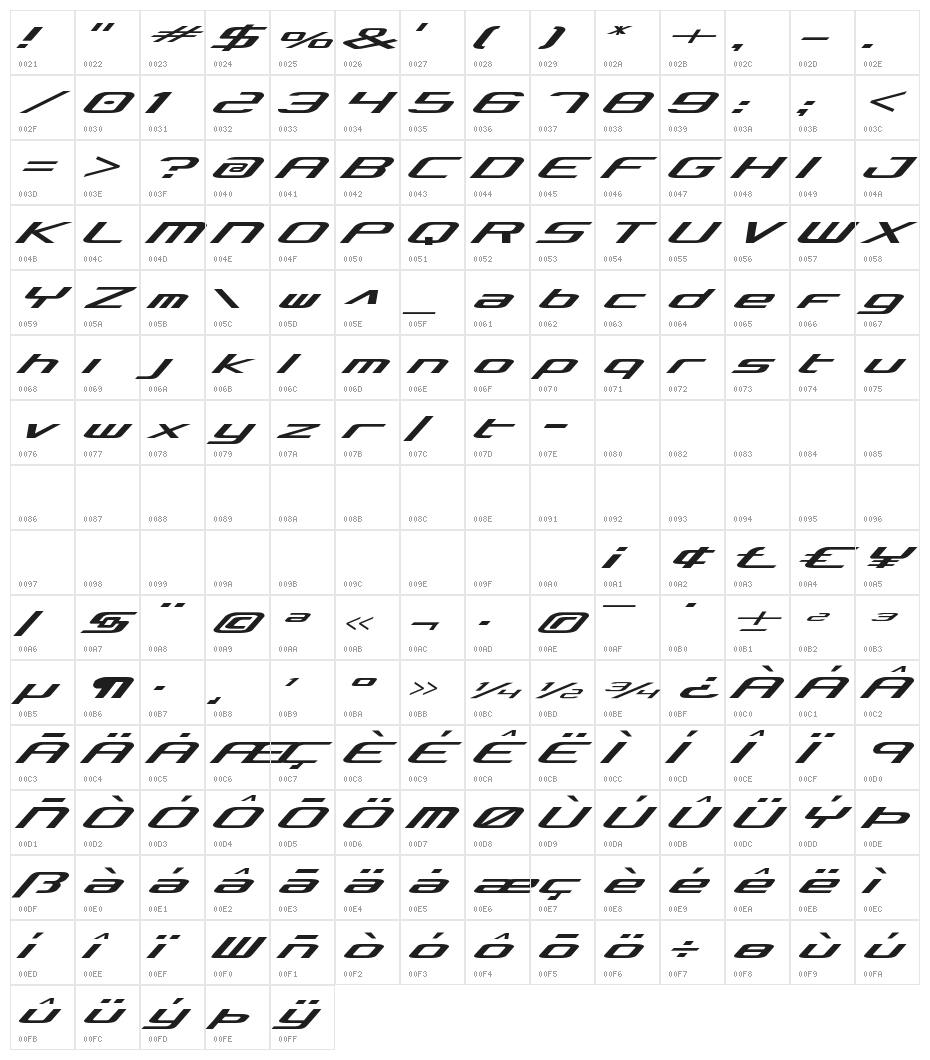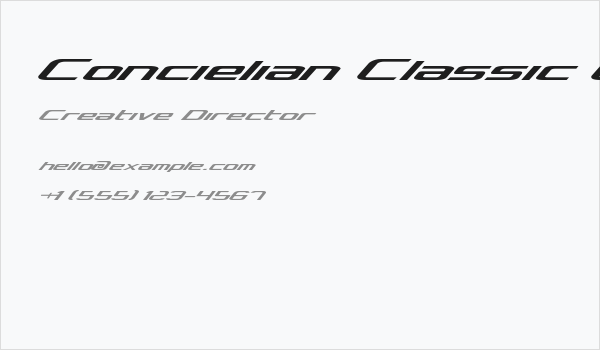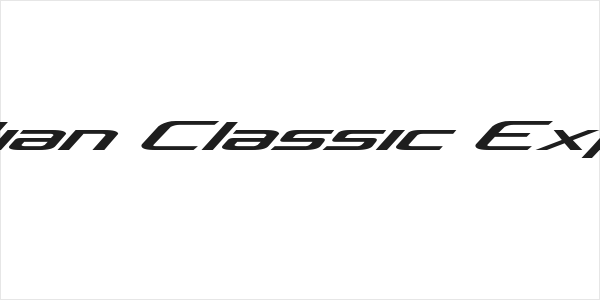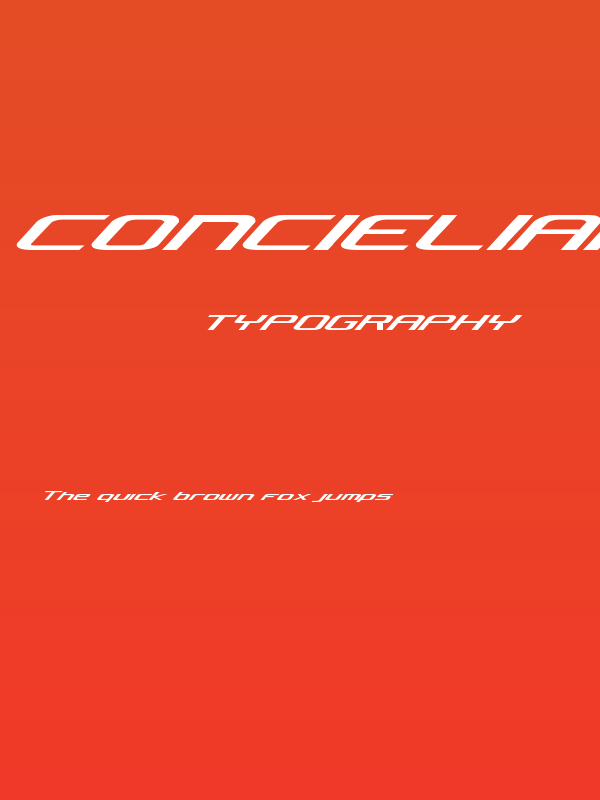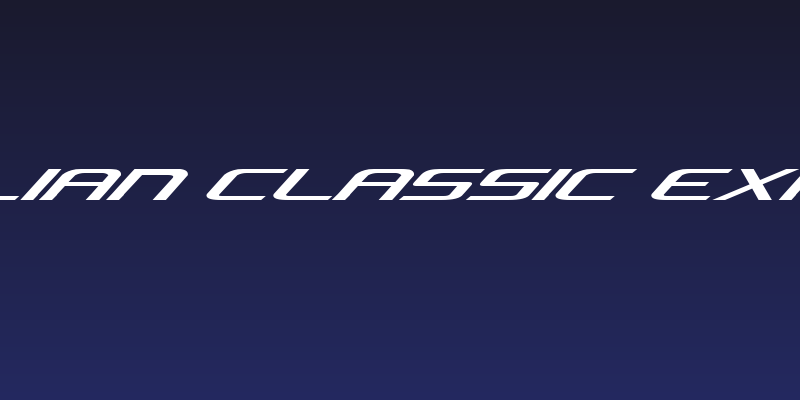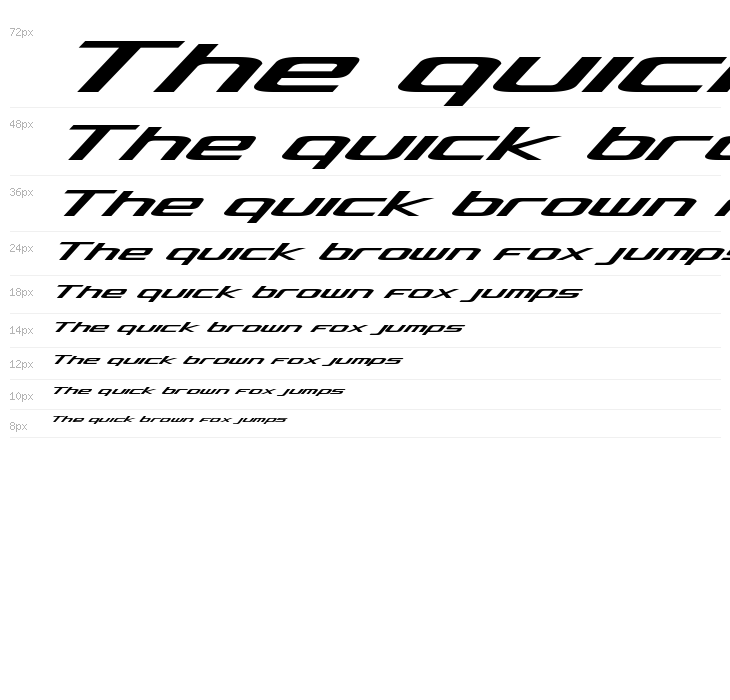
Concielian Classic Expanded Font
Concielian Classic Expanded Description
This font features a sleek, modern design with a futuristic flair. The characters are slightly italicized, giving a sense of motion and dynamism. The strokes are uniform in thickness, providing a clean and consistent appearance. The expanded width of the characters adds a unique touch, making the font stand out in any design. The overall look is both stylish and functional, suitable for a variety of applications. The special characters maintain the same aesthetic, ensuring a cohesive look across all text elements.
| Proposed Projects | Ideal for branding, technology-related projects, futuristic designs, and modern advertising campaigns. |